Fun with Pattern Fonts
Q: Do you have any suggestion on how to liven up my design using some unusual fonts?
A: When we talk about fonts, most people assume we are talking about type. But a font can be used to display more than the alphabet. Take for example pattern fonts. Pattern fonts consist of decorative or illustrative elements which, when repeated (or tiled) vertically and/or horizontally, create a perfectly seamlessly aligned pattern which can be used for a wide range of purposes.
One of the most common uses for patterns is to create backgrounds for websites, blogs, and social media pages. While innumerable background images can be found on the web, they are usually jpg files with fixed sizes and colors, which limit their usage. Pattern fonts offer ease of use as well as unlimited flexibility by allowing you to change their size, proportion, color and transparency. You also have the option of intermixing them to create your own, uniquely personal pattern.
Pattern fonts can also be used for a lot more than just web page backgrounds. They are great for print projects, such as menus, signage, invitations, bookplates, posters, packaging, book covers and editorial pages, as well as fabric and clothing, wallpaper, logos, branding and identity, etc.
Pattern fonts are also great for borders and as individual icons or decorative elements. Some even come with corner elements. With a little ingenuity, they can also be used as a fill for headline type. They can set the mood of a genre or a time period – from traditional to modern, simple to fancy, geometric to organic to abstract. They can be combined, overlapped, and overlaid – your imagination is the limit.
One very beautiful and useful pattern font series is Wallflowers I, II, and III, designed by Laura Worthington. Although primarily known for her script and handwriting fonts, this talented typeface designer and hand-lettering artist lovingly created these unique, hand drawn wallpaper tiles and accompanying icons. Floral motifs, abstracts, skeletons, lipstick kisses, even insects – she’s got them all! They are super easy to use as they all come with a PDF User Guide that includes a key for accessing every image, as well as samples of the pattern they create.
Laura’s inspiration came from her childhood. “I’ve always loved background patterns. They are so useful in graphic design. I grew up in a house with a lot of interesting wallpaper as a kid, and I loved to try sketch out the ‘seeds’ of the patterns on the walls and from the awesome 1970s wallpaper swatch books my mom had. I found it fascinating that any sketch could be turned into a pattern.”
She describes her process: “The core of pattern creation lies within what is commonly referred to as the ‘seed.’ In the simplest of patterns, the seed would be the design element/s filling up the shape of a square or rectangle, which automatically turns into a tile.”
“When I decided to create Wallflowers, the first edition, I scoured my many notebooks for little drawings I had done over the years to compile the first set. Some of them I redrew with tracing paper to fine tune the seed, then I scanned in the group and redrew them in Illustrator. From there, I worked on turning the seed into the tile pattern.
“After that is done, I bring it into FontLab where the work continues on the outlines and making sure it seams up properly and then I turn it into a font. Some patterns are easy and only take a couple of hours to create, other more complex images, such as the lace pattern, can take up to 12 hours to create.”
On a technical note, many pattern fonts are designed to line up when set with no tracking, and set solid, but not all work this way. Depending on the application you are using, be sure to adjust tracking and line spacing accordingly to make sure the pieces line up correctly. Viewing on your computer monitor at 100% magnification can make the pieces of the pattern look misaligned, even when they are not. To get an accurate view, either zoom in close or print the pattern on a high-resolution printer to see how the pieces actually align.
Figure 1. For the background of this image, which I designed for Felt & Wire, I used an intricate lace tile from Wallflowers III, as it fit the vintage mood I sought to create. Regarding this design, Laura says, “It took forever to draw, and required lots of research on how lace is made; I even went to a sewing store to look at samples of lace to figure it out!”
Figure 2. Several more patterns from the Wallflower III series by Laura Worthington.
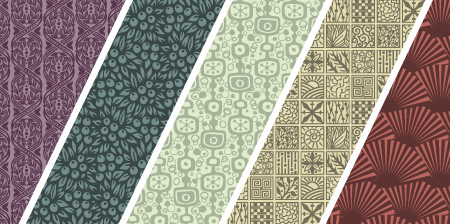
Figure 3. From intricate pencil sketch to final artwork– this fantasy world is another Wallflowers image.
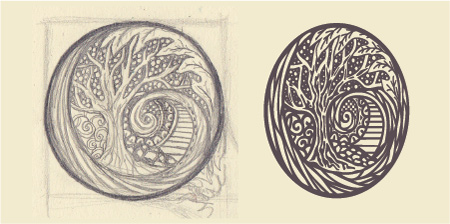
Figure 4. Patterns from two ornament fonts by Akira Kobayashi: ITC Seven Treasures (top row) and ITC Japanese Garden (bottom row).
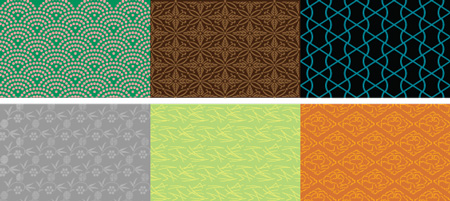
Figure 5. Blooming Meadow, a pattern font designed by Viktor Kharyk, contains many images inspired by nature.
Figure 6. Garamono, a pattern font designed by Khaito Gengo, contains a broad variety of pattern styles.